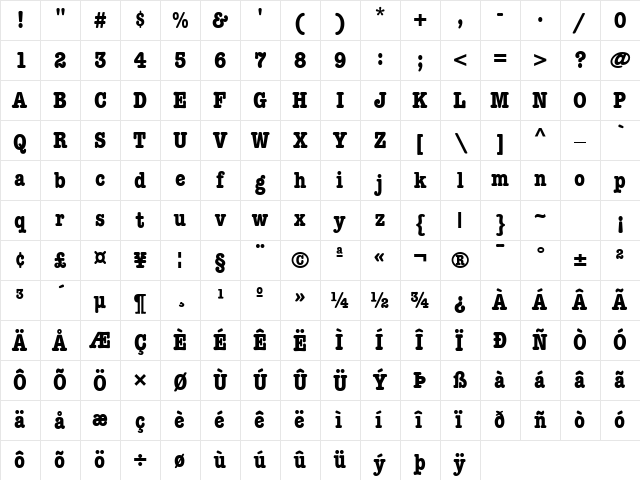
Keyboard CondensedAlt SSi Bold Condensed Alternate
Style: Bold Condensed Alternate
Keyboard CondensedAlt SSi Family
Keyboard CondensedAlt SSi Bold Condensed Alternate
Design Context for Keyboard CondensedAlt SSi
Keyboard CondensedAlt SSi is a composed and adaptable typeface that performs quietly and consistently across a wide range of design contexts. Its bold stroke weight gives it real presence on the page. Its narrow stance lets it pack a punch even in space-constrained designs.